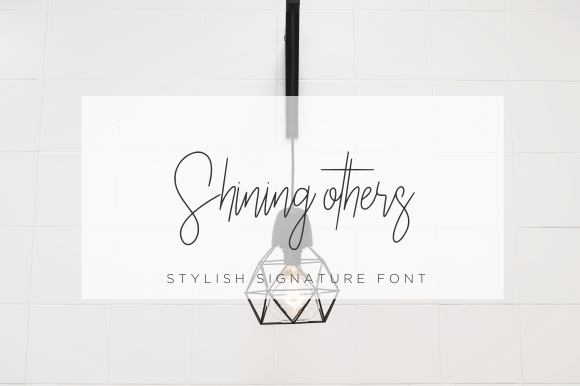
Attaliand Script Font
Hi designer! A signature font perfect for all your needs, it’s a natural handwriting style. Attaliand  – elegant signature typeface created by barthleby. The Attaliand is a simple yet stylish typeface. It has a feminine and elegant look which makes it perfect for various designing needs. Attaliand can be used in various uses such as watermarks, signature and signature logos, business cards, brand names, and many more.